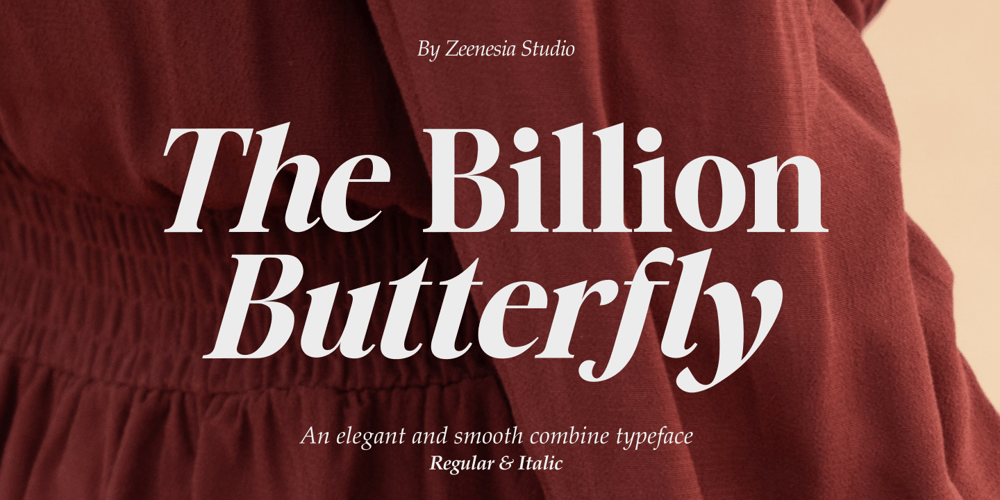
The Billion Butterfly
The Billion Butterfly font
The Billion Butterfly Font Family was designed by Doni Purwoko and published by Zeenesia Studio. The Billion Butterfly contains 2 styles and family package options. Have a great day!Hello my new font was present. The Billion Butterfly is a an elegant and smooth combine typeface regular and italic serif font. It’s a very versatile font that works great in large. The Billion Butterfly Perfect for editorial projects, Logo design, web font, branding, product packaging, magazine , or simply as a stylish text overlay to any background image.